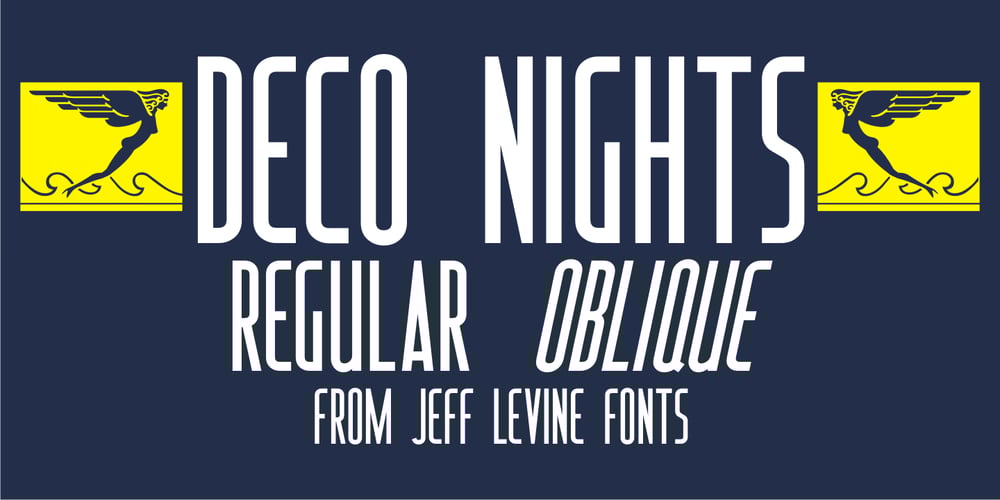
Deco Nights JNL Font Family was designed by Jeff Levine and published by Jeff Levine. Deco Nights JNL contains 2 styles and family package options. Sheet music for the tune “Put Your Arms Around Me Honey” (from the 1937 film “Coney Island” starring Betty Grable, George Montgomery and Cesar Romero) has the song title hand lettered in a condensed Art Deco sans serif design. This became the basis for Deco Nights JNL, which is available in both regular and oblique versions. For trivia buffs, the song was written by Junie McCree and Albert Von Tilzer and was first featured in the Broadway show “Madame Sherry” in 1910 and was revived for a second time in the 1949 Judy Garland -Van Johnson film “In the Good Old Summertime”.